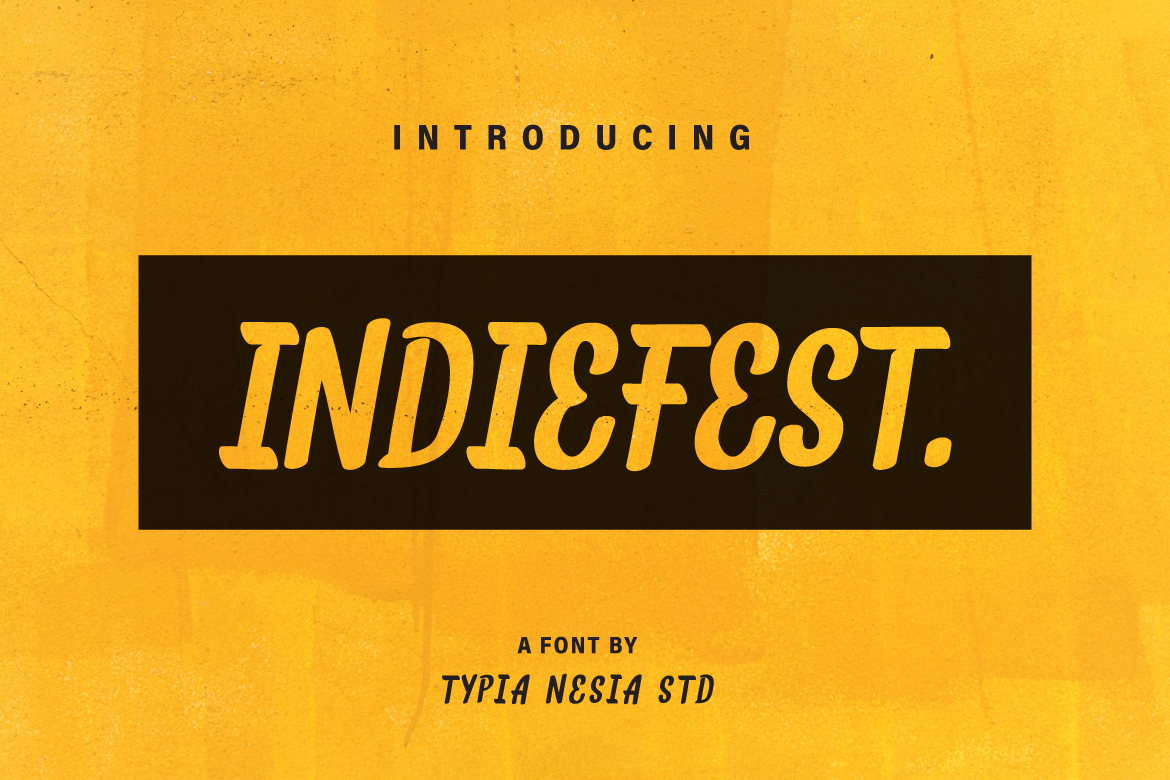
IndieFest is a Marker Lettering font. It suitable for logo, branding, t-shirt, music poster, packaging, book cover, hipster / urban design, cards, and any marker lettering needs and more.
Typia Nesia Std
IndieFest